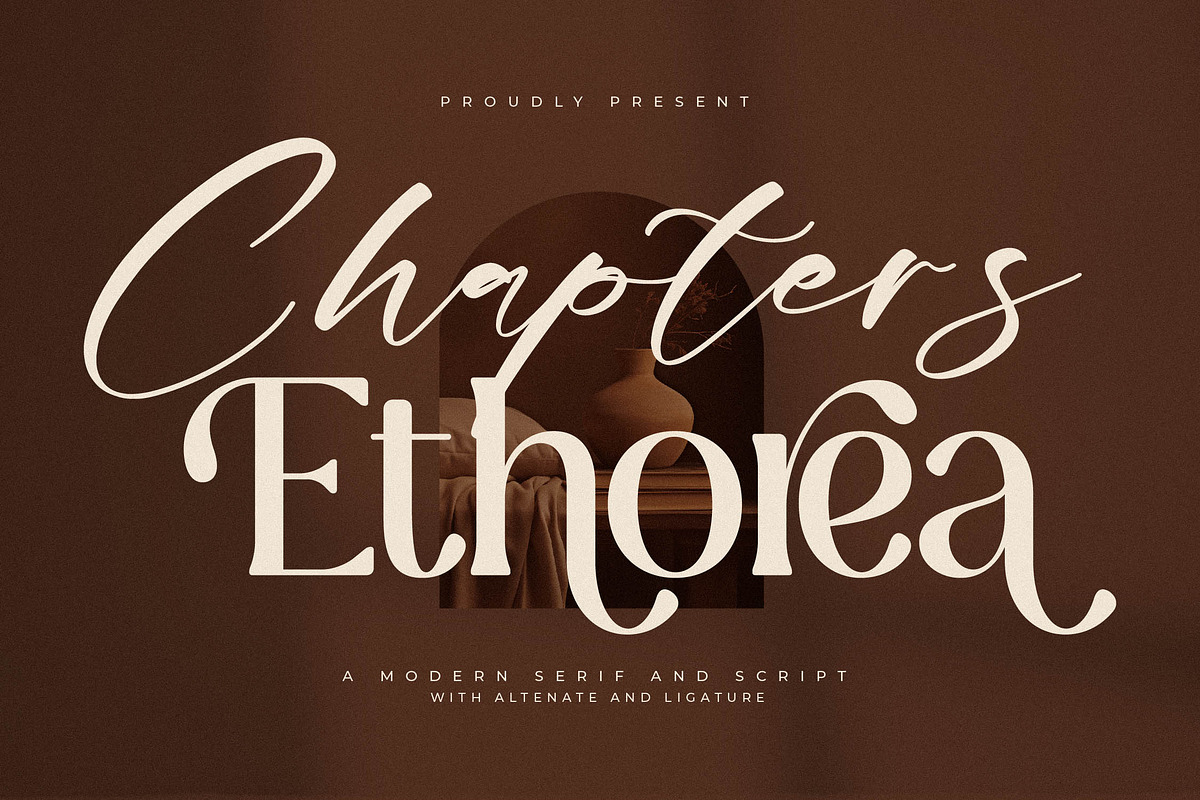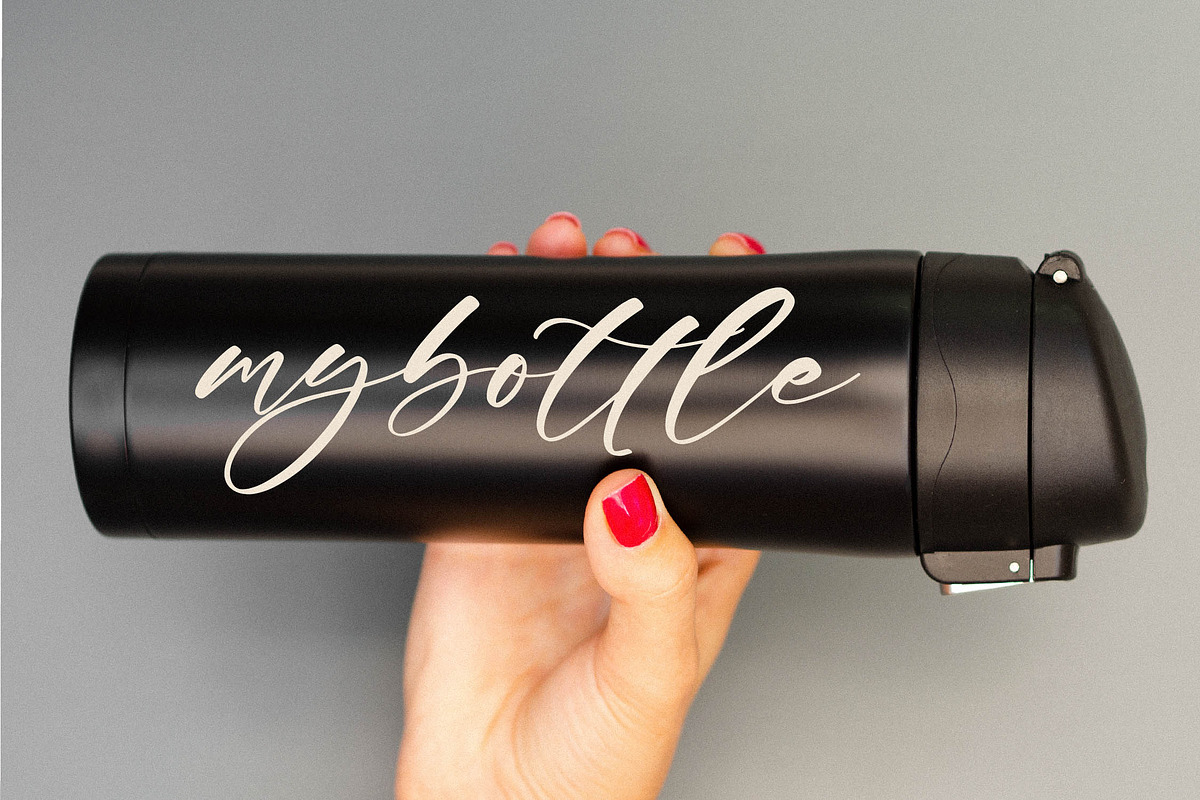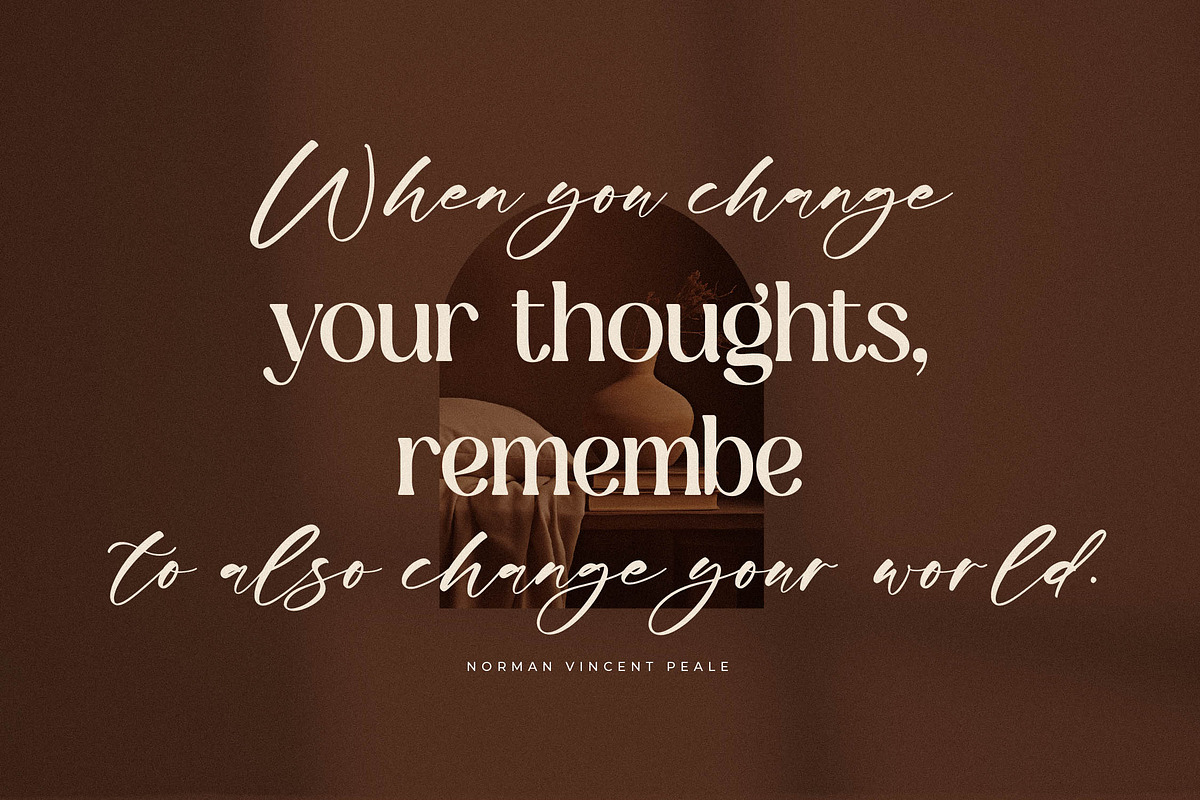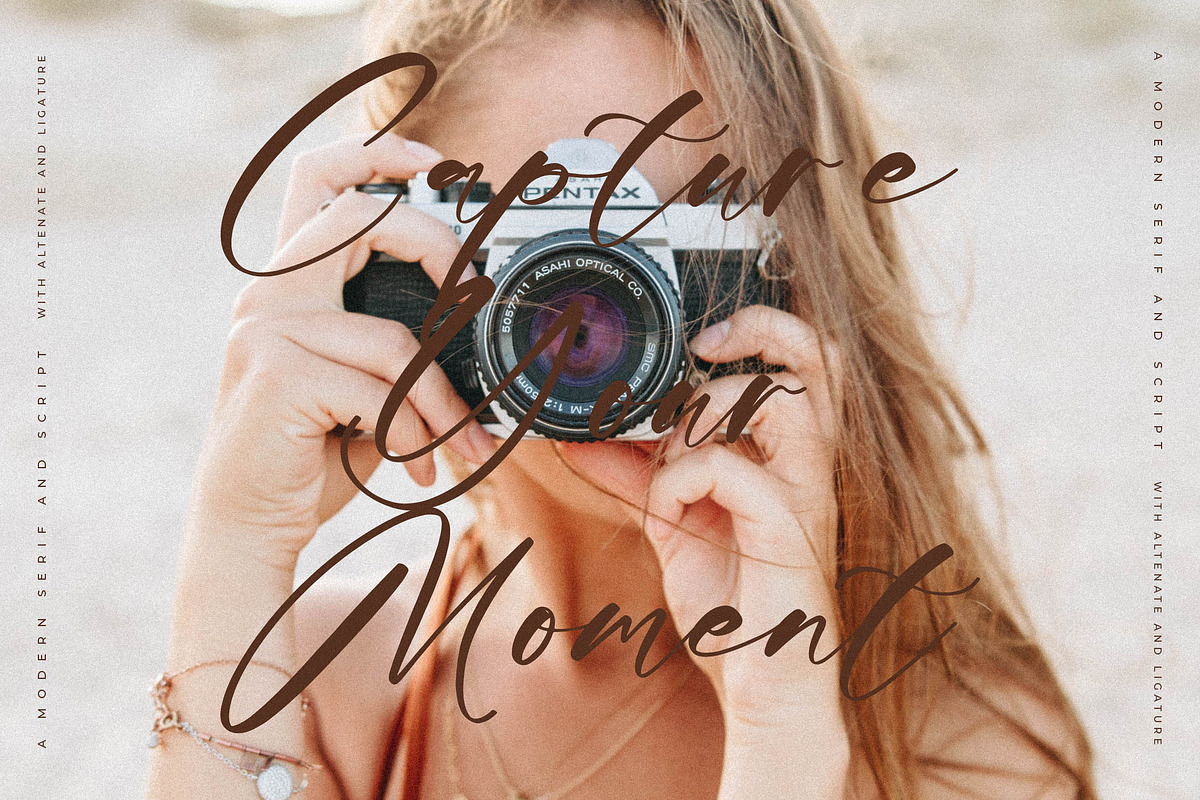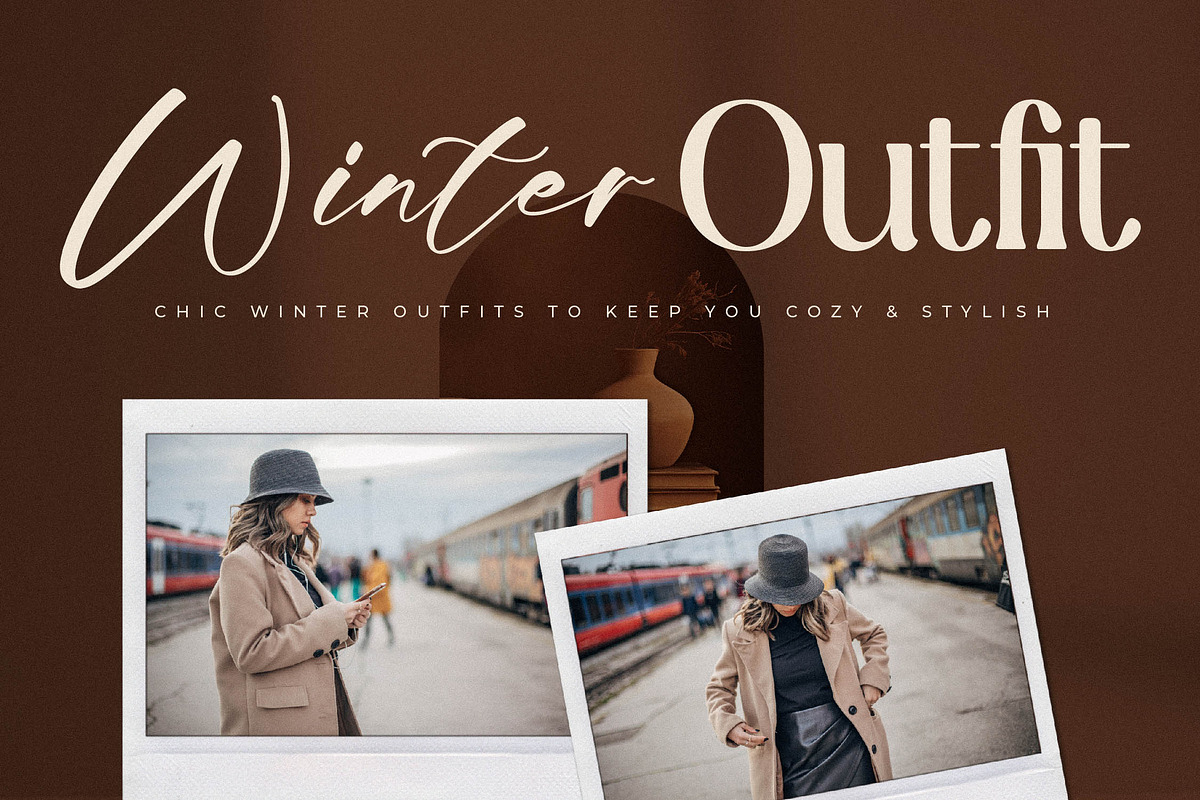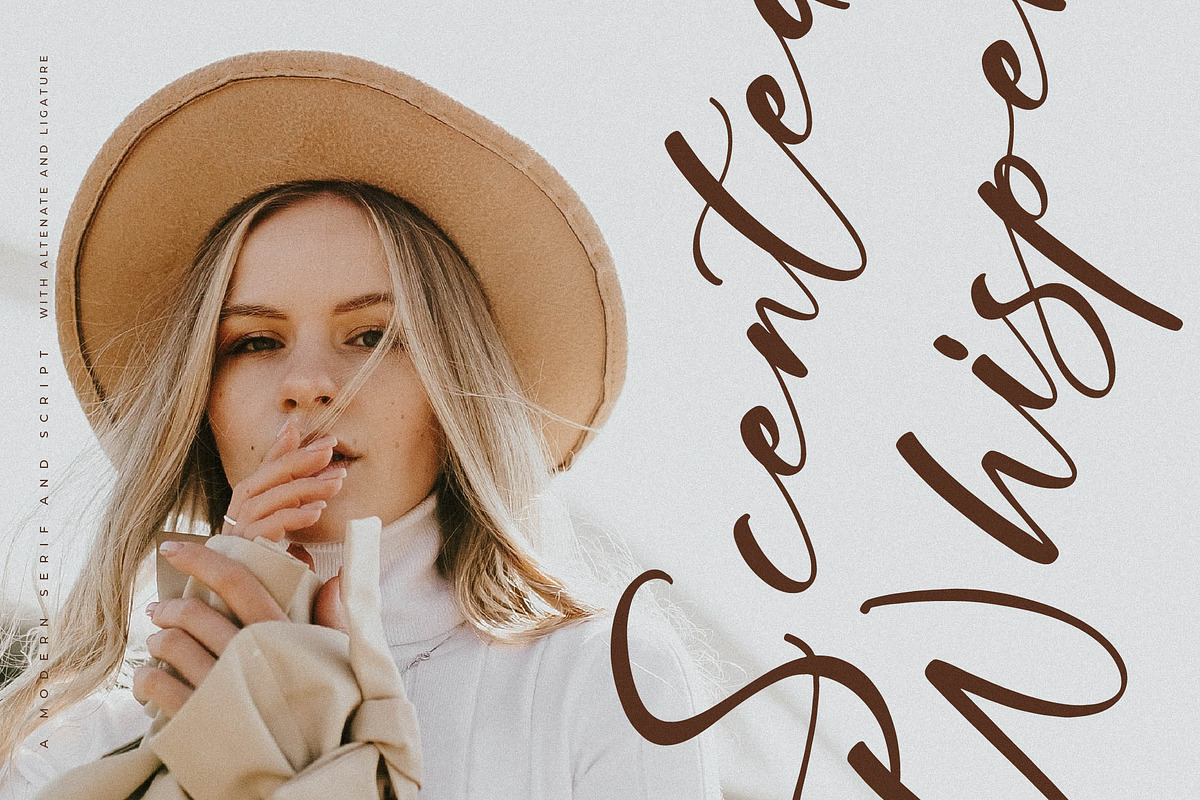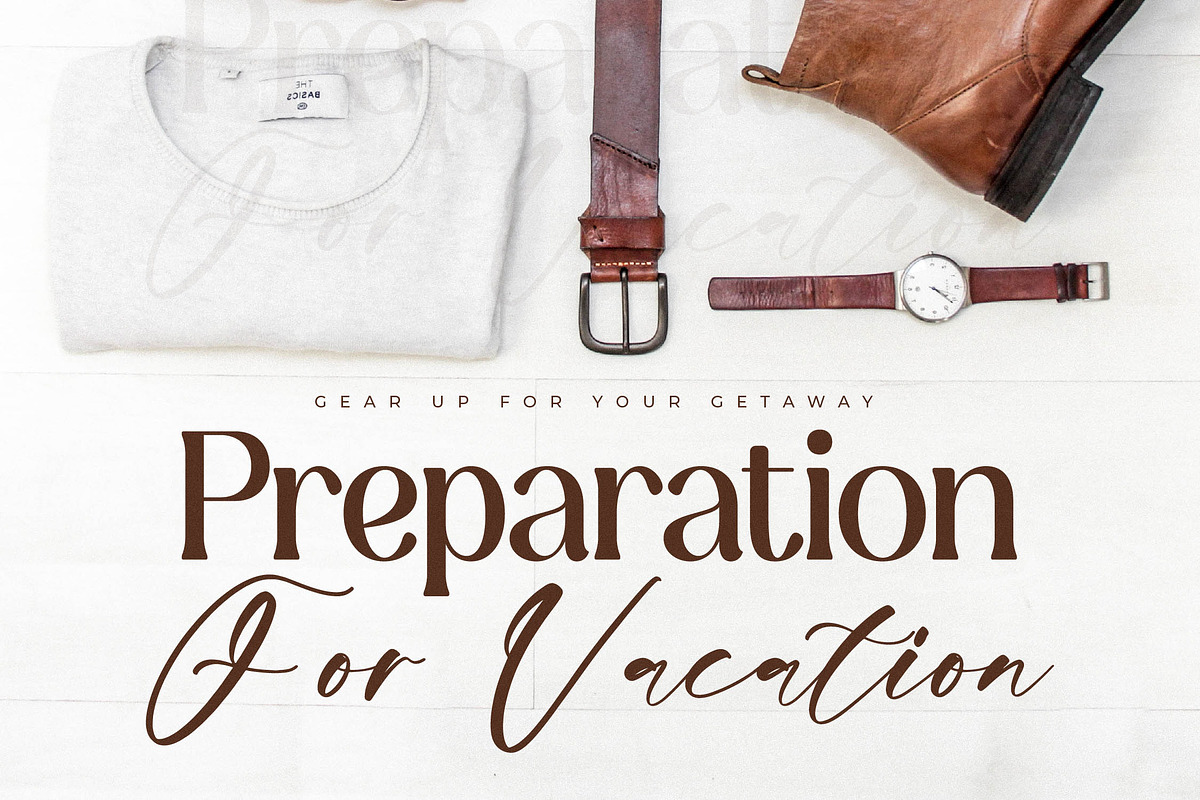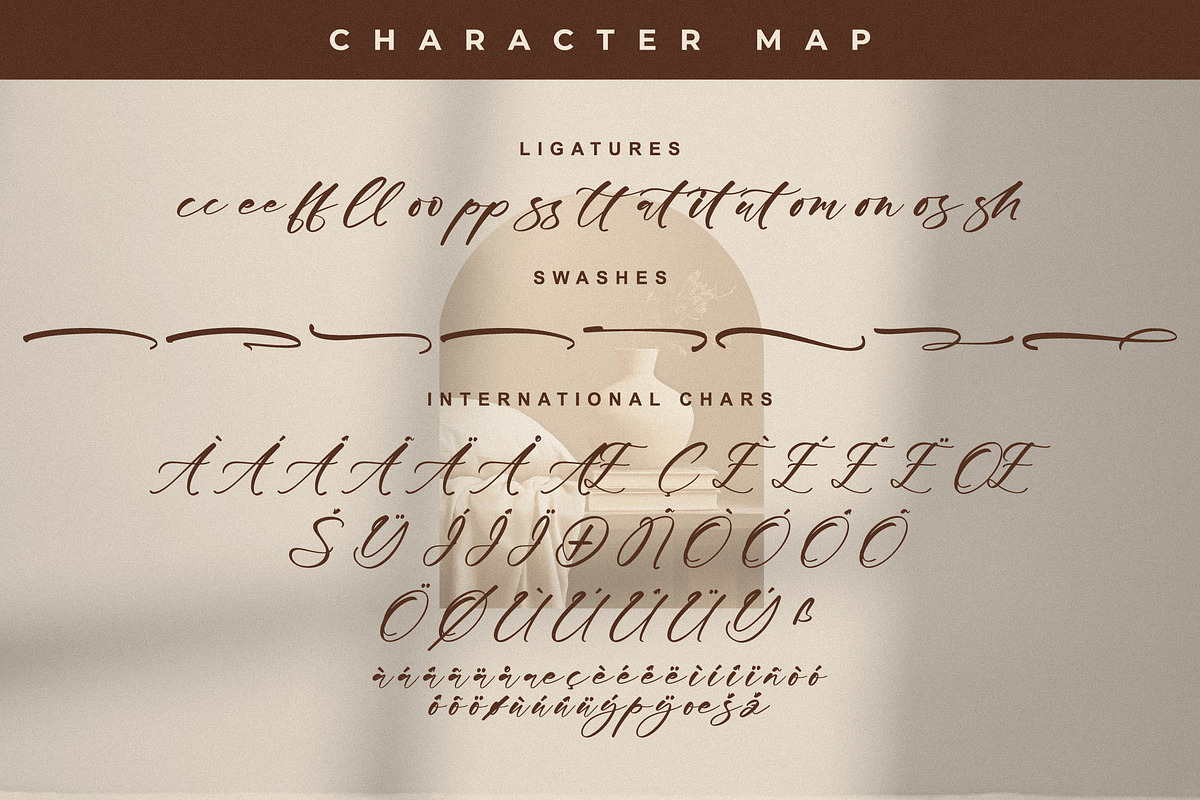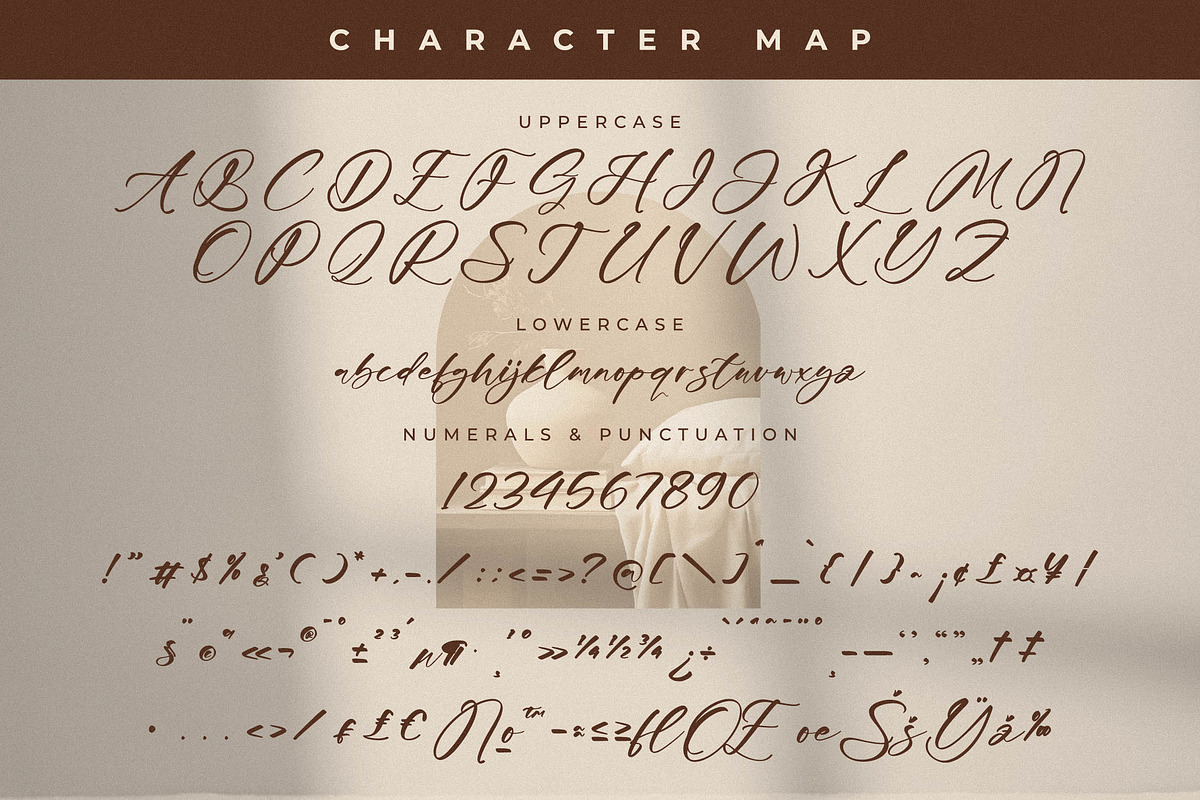
Chapters Ethorea A Modern Font Duo
Proudly present Chapters Ethorea Font Duo , created by Storytype, A serif and script typeface that has own unique style & modern look. This typeface is perfect for an elegant & luxury logo, book or movie title design, fashion brand, magazine, clothes, lettering, quotes, and so much more.